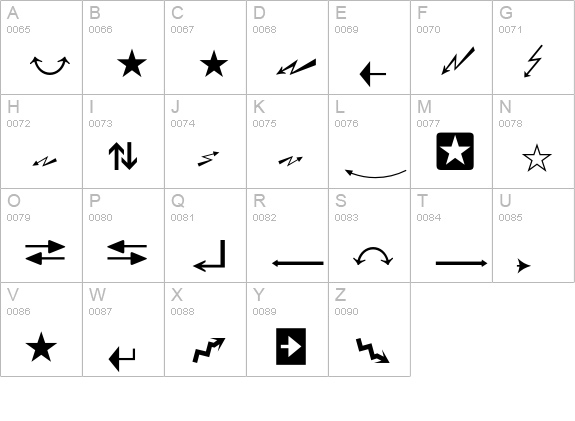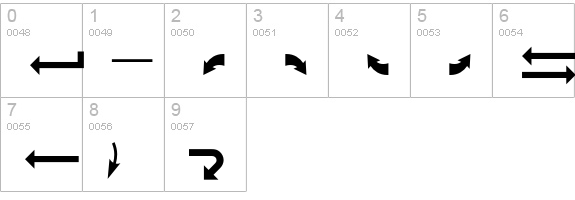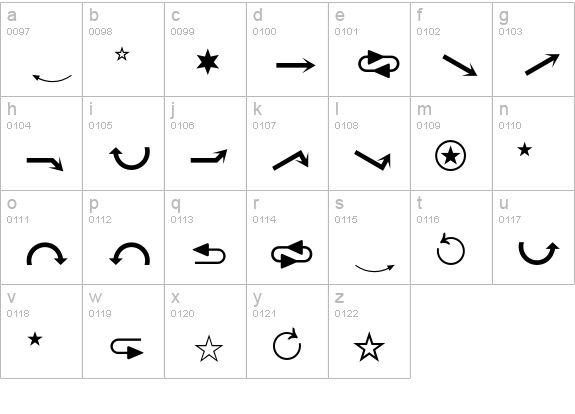
GeneralSymbolsP03 Font Details
GeneralSymbolsP03 font is a versatile and stylish typeface that is perfect for adding a unique touch to your design projects. This font features a wide range of symbols and icons that can be used in various creative applications. From arrows to shapes to decorative elements, GeneralSymbolsP03 offers a comprehensive collection of symbols to enhance your designs. The clean and modern design of GeneralSymbolsP03 font makes it suitable for a wide range of projects, including logos, branding, web design, and more. Whether you are looking to add a subtle accent or a bold statement, this font has the versatility to meet your needs. Best of all, GeneralSymbolsP03 font is available for free download at FontsMarket.com. This means you can easily access this stylish and practical font without any cost, making it a valuable addition to your font library. Don't miss out on this opportunity to enhance your designs with the GeneralSymbolsP03 font today!